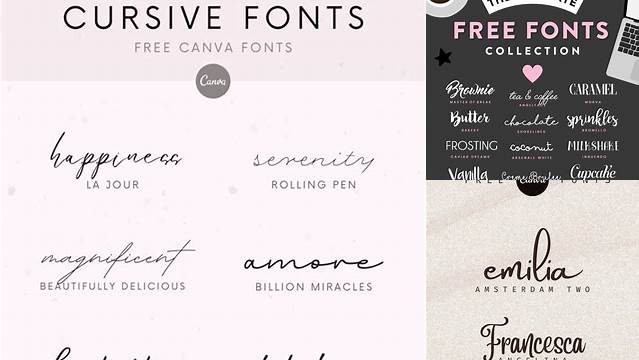
Free Cursive Fonts On Behance: Your Ultimate Guide
Hey guys! Looking for that perfect free cursive font to add a touch of elegance to your next project? You've come to the right place! Behance is a treasure trove of incredible design resources, and that includes a ton of stunning cursive fonts. But with so many options, it can feel like searching for a needle in a haystack. That's why we've put together this ultimate guide to help you navigate the world of free cursive fonts on Behance and find exactly what you need. Whether you're designing invitations, logos, websites, or anything in between, the right font can make all the difference. So, let's dive in and explore the amazing world of free cursive fonts that Behance has to offer! We'll cover everything from finding the fonts to using them effectively, so you can create designs that truly shine. So, get ready to discover and download your next favorite font!
Exploring Behance for Free Cursive Fonts
Finding free cursive fonts on Behance can be an exciting adventure. Behance, as you probably know, is Adobe's online platform for showcasing creative work, and it's a fantastic place for designers to share their fonts and other resources. But where do you start? The key is to use the right search terms and filters. Try searching for phrases like "free cursive font", "handwritten font free", or even more specific terms like "free calligraphy font". Don't be afraid to experiment with different keywords to see what results you get. Once you've run a search, take advantage of Behance's filters to narrow down your results. You can filter by project type, creative fields (like typography), and even tools used. This can help you quickly find fonts that are relevant to your specific needs. Also, keep an eye out for keywords like "free for personal use" or "free for commercial use" in the font descriptions, so you know how you're allowed to use the font. Remember, exploring Behance is all about discovering hidden gems, so take your time and have fun with it!
Understanding Cursive Font Styles
Before we delve deeper, let's talk about the different styles of cursive fonts. Not all cursive fonts are created equal! Some are elegant and formal, perfect for wedding invitations, while others are playful and whimsical, ideal for branding projects. Understanding the nuances of different styles will help you make the right choice for your project. You've got script fonts, which mimic handwriting and often feature flowing connections between letters. Then there are calligraphy fonts, which are inspired by traditional calligraphy and often have more dramatic flourishes and thick-to-thin strokes. Brush fonts are another popular style, characterized by their textured, hand-painted look. And of course, there are countless variations and sub-styles within these categories. The key is to consider the overall tone and message of your design when choosing a font. A delicate script might be perfect for a romantic brand, while a bold, brush-style cursive could be great for a more edgy or artistic project. So, take your time to explore the different styles and find one that truly resonates with your vision.
Best Free Cursive Fonts for Wedding Invitations
Planning a wedding? Then you know how important it is to set the right tone with your invitations. And what better way to do that than with a beautiful, free cursive font? Wedding invitations often call for fonts that are elegant, romantic, and timeless. Think flowing scripts, delicate letterforms, and perhaps a touch of flourish. Some popular choices for wedding invitations include calligraphy-inspired fonts that evoke a sense of tradition and sophistication. But you can also go for a more modern and minimalist script if that suits your style. When choosing a cursive font for wedding invitations, readability is key. You want your guests to be able to easily read the details of your big day. So, avoid fonts that are too ornate or have overly complex letterforms. It's also a good idea to pair your cursive font with a simpler, sans-serif font for the body text of the invitation. This will create a nice contrast and ensure that the overall design is balanced and easy to read. Finding the perfect font can really elevate your invitations and give your guests a glimpse of the magic to come.
Top Cursive Fonts for Logo Design (Free Options)
Creating a logo? A well-chosen cursive font can add personality and memorability to your brand identity. But finding the right free cursive font for logo design requires careful consideration. You want a font that not only looks great but also reflects the character and values of your brand. For logo design, legibility is paramount. Your logo needs to be easily recognizable, even at small sizes. So, avoid fonts that are too thin, too ornate, or have overly complex letterforms. You'll also want to think about the overall aesthetic you're trying to achieve. A flowing script can convey elegance and sophistication, while a bold, brush-style cursive might be better suited for a brand that wants to project a more edgy or artistic vibe. It's also crucial to consider the versatility of the font. Will it work well across different applications, from your website to your business cards? Testing out the font in various contexts is always a good idea before you make a final decision. And remember, while free fonts can be a great option, be sure to check the licensing terms to ensure you can use them for commercial purposes.
Using Free Cursive Fonts in Website Design
Incorporating a free cursive font into your website design can add a touch of personality and visual interest. But it's important to use these fonts strategically to ensure a positive user experience. Cursive fonts are often best used for headings, subheadings, and other display text, rather than for large blocks of body text. This is because cursive fonts can be more challenging to read in large quantities. Think about using a cursive font to highlight key elements on your page, such as your brand name, a tagline, or a call to action. Pairing your cursive font with a clear, legible sans-serif font for the body text is a great way to create contrast and improve readability. When using cursive fonts on the web, it's also crucial to consider page load times. Some more complex or ornate fonts can be quite large in file size, which can slow down your website. Optimizing your fonts for the web is essential for ensuring a fast and smooth user experience. Tools like Google Fonts can help you find optimized versions of fonts. And always test your website on different devices and browsers to make sure your fonts are rendering correctly.
Free Cursive Fonts for Personal Projects
Looking for a free cursive font for your personal projects? Whether you're creating greeting cards, scrapbooking, or designing social media graphics, there are tons of amazing options out there. The best part about personal projects is that you have the freedom to experiment and have fun with your font choices! You can choose fonts that perfectly match your personal style and the tone of your project. If you're creating a handmade card, for example, a casual, handwritten-style cursive could be a great choice. For a more elegant project, a refined script or calligraphy-inspired font might be a better fit. When choosing a font for personal use, you don't need to worry as much about commercial licensing restrictions. However, it's still a good idea to check the font's license to make sure you're using it in a way that's permitted by the designer. And remember, the most important thing is to have fun and express your creativity! Experiment with different fonts and see what works best for your project.
Pairing Cursive Fonts with Other Fonts
One of the keys to effective typography is understanding how to pair fonts. A free cursive font, while beautiful on its own, often looks even better when paired with another font. The goal is to create a visual hierarchy and ensure readability. As we've mentioned before, cursive fonts are often best used for headings and display text, while simpler fonts like sans-serifs are ideal for body text. Pairing a cursive font with a sans-serif is a classic combination that works well in many contexts. The clean lines of the sans-serif font provide a nice contrast to the flowing curves of the cursive, creating a balanced and visually appealing design. Another option is to pair your cursive font with a serif font. This can create a more traditional and elegant look. When choosing fonts to pair, it's important to consider the overall tone and style of your project. You want to choose fonts that complement each other and work together to convey your message effectively. Don't be afraid to experiment with different combinations to see what looks best. There are plenty of online resources that can help you find font pairings, but ultimately, your own eye is the best judge.
Understanding Font Licensing for Free Cursive Fonts
Before you start using a free cursive font in your projects, it's crucial to understand font licensing. Just because a font is free to download doesn't necessarily mean you can use it in any way you want. Font licenses specify how you are allowed to use the font, including whether you can use it for commercial projects, modify it, or redistribute it. Understanding these licenses is essential for avoiding legal issues down the road. Many free fonts come with a "free for personal use" license, which means you can use them for personal projects like invitations or scrapbooking, but not for commercial purposes like logo design or marketing materials. If you want to use a font for commercial purposes, you'll need to look for a font with a "free for commercial use" license or a similar designation. Some fonts are released under open-source licenses like the SIL Open Font License, which allows for a wide range of uses, including commercial use and modification. Always take the time to read the font's license before you use it, and if you're unsure about something, it's always best to err on the side of caution and contact the font designer or distributor for clarification.
Tips for Choosing the Right Cursive Font
Free Cursive Fonts for Book Covers
Book covers are the first thing readers see, and a well-designed cover can make all the difference in attracting attention. A free cursive font can add personality, style, and visual appeal to your book cover design. When choosing a cursive font for a book cover, consider the genre of the book and the target audience. Different genres have different typographic conventions. For example, a romance novel might benefit from a flowing script, while a thriller might be better suited to a bolder, more dramatic font. Readability is also crucial. Your title and author name need to be easily readable at a glance, even on a small thumbnail image. Think about the overall design of the cover. Your font should complement the other design elements, such as the images, colors, and layout. The size and placement of the text can also affect the overall impact of the cover. And remember, your book cover is your book's first impression, so make it a good one! A well-chosen cursive font can help you create a cover that is both visually appealing and effective.